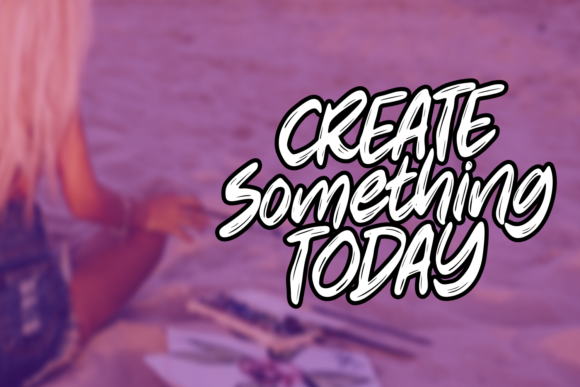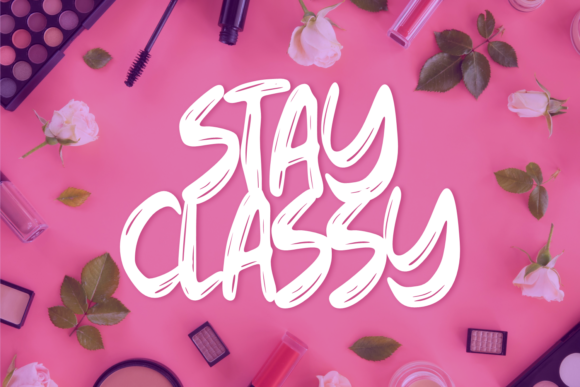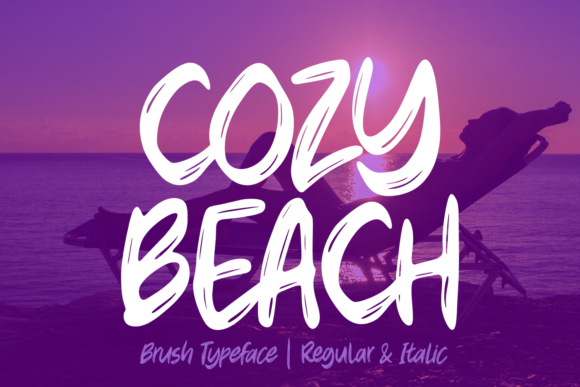
Introduction to Cozy Beach Font
Cozy Beach is a simple, fun, and relaxed Script font.
This font’s big brush strokes make it easy to read and versatile for business cards, websites, quotes, websites, and more .
Cozy Beach Font offers exceptional quality and versatility, making it a valuable addition to your design toolkit. Whether you’re creating for personal projects or commercial use, Cozy Beach Font delivers professional results.